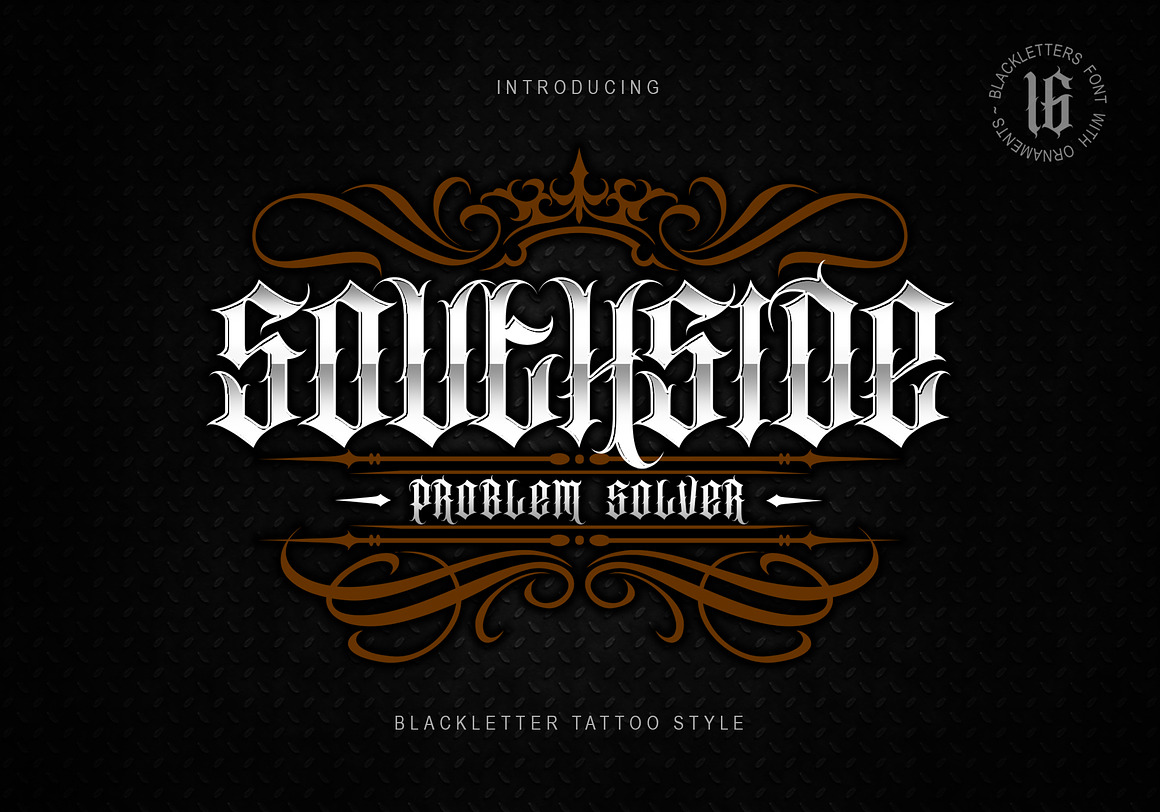
SOUTHSIDE | EXTRA BONUS Font
The SOUTHSIDE | EXTRA BONUS Font excels in various design applications including urban streetwear branding, hip-hop album covers, southern culture marketing, automotive custom shop graphics, barbershop signage, local neighborhood businesses, community event posters, regional food truck branding, and authentic southern lifestyle campaigns. This distinctive typeface brings bold regional character to both digital urban platforms and community-focused print materials.
What makes SOUTHSIDE | EXTRA BONUS Font exciting is its authentic street-inspired aesthetic that captures the genuine spirit of southern urban culture and neighborhood pride. The font features bold letterforms with regional character influences and community-driven design elements that evoke the authentic energy of southside neighborhoods while maintaining strong readability. Its cultural design philosophy combines regional authenticity with contemporary functionality, creating powerful visual statements that resonate with local communities and urban culture enthusiasts.
The SOUTHSIDE | EXTRA BONUS Font family includes multiple variations and bonus elements: Regular, Bold, Condensed, Outline, Shadow, Stencil styles, plus additional decorative elements and bonus graphics. Each style maintains the signature neighborhood character while offering designers extensive flexibility for community-focused brand systems and regional layouts. The comprehensive character set supports multiple languages and includes urban symbols, regional elements, and contemporary punctuation marks perfect for authentic local branding.
The technical excellence of SOUTHSIDE | EXTRA BONUS Font includes carefully crafted regional styling, optimized urban letterforms, and reliable cross-platform performance. Whether you're designing community logos or complex neighborhood layouts, this font delivers consistent cultural authenticity. The balanced proportions work exceptionally well in large-scale community applications while maintaining readability in smaller local business materials.
Creative studios appreciate how SOUTHSIDE | EXTRA BONUS Font enhances brand communication through its authentic regional aesthetic. The font's community appeal makes it ideal for soul food restaurants, local music venues, neighborhood markets, and southern heritage brands seeking to convey authenticity and local pride. Its bold character complements various design styles while establishing powerful brand personalities in community-focused markets.
From small business cards to expansive community murals, SOUTHSIDE | EXTRA BONUS Font maintains its authentic presence across all applications. The font's robust construction ensures visual impact in competitive local environments while its regional details and bonus elements provide comprehensive design solutions, making it an essential toolkit for designers creating memorable community brand experiences.